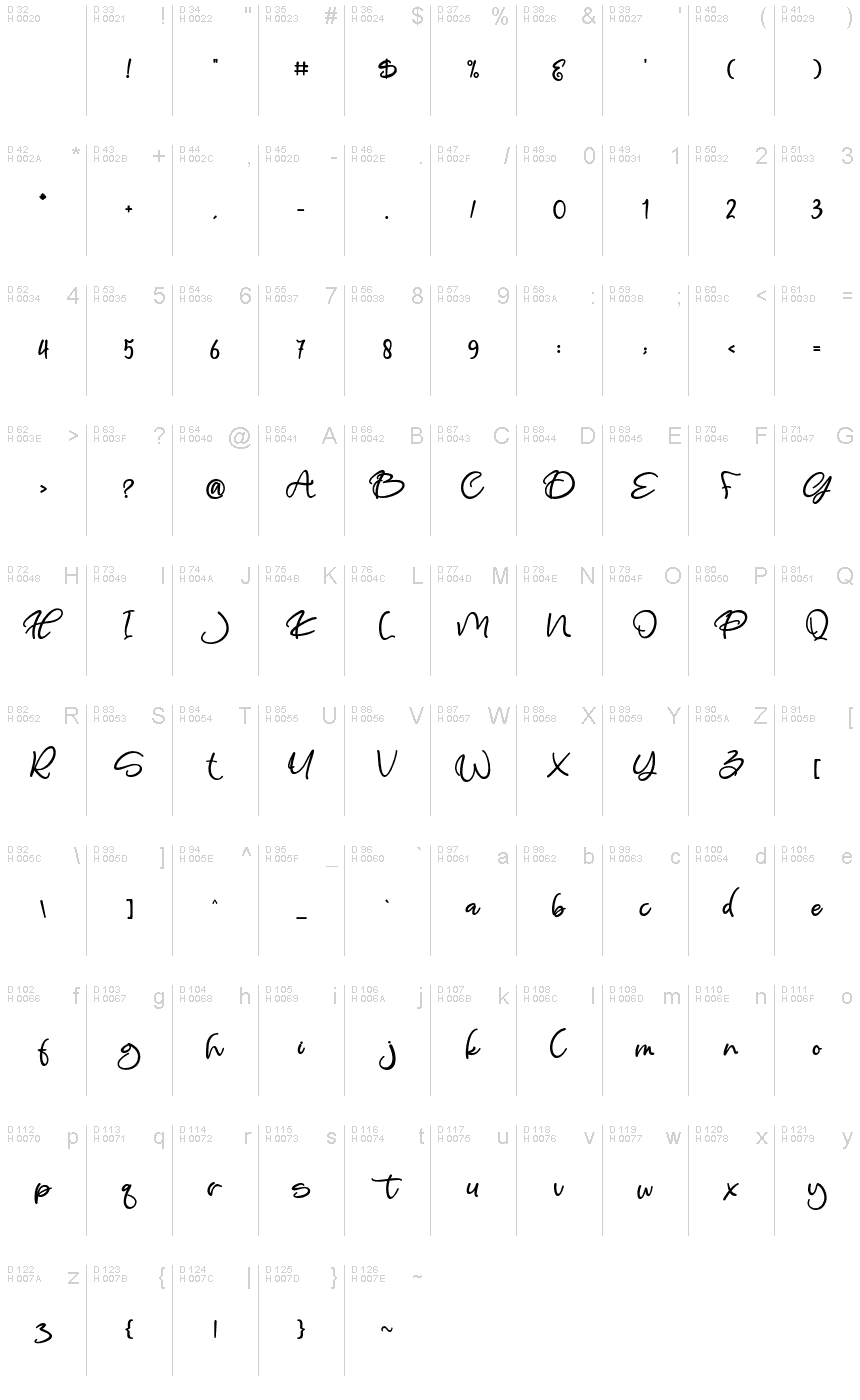
Heaster
Heaster, a charming handwritten font by Letterara 2020, brings a delightful touch to your projects. With its semi-light weight and semi-expanded width, this font perfectly complements a range of creative endeavors. From whimsical children's books and greeting cards to elegant wedding invitations and personal branding, Heaster adds a warm and inviting feel. Its unique style captures the essence of handmade craftsmanship, making it ideal for artisanal product packaging or organic food labels. This font is sure to captivate your audience while enhancing readability across various digital platforms.